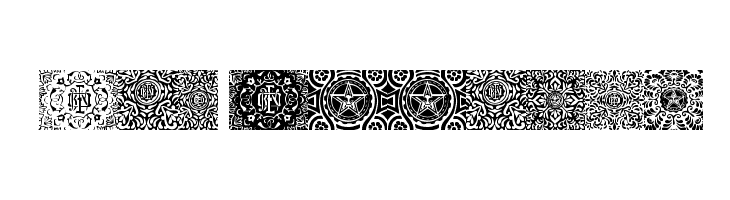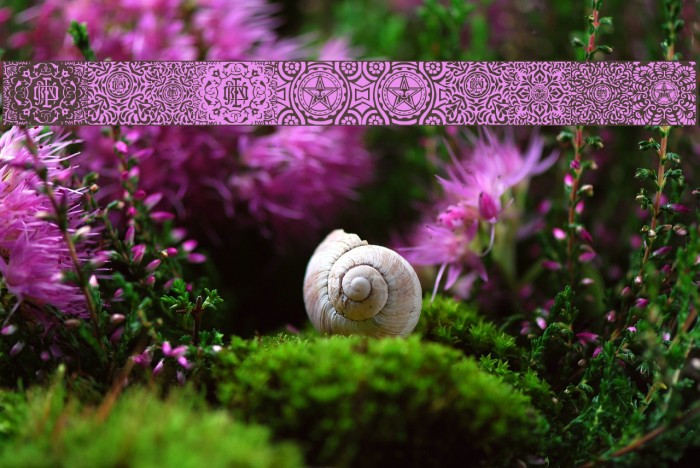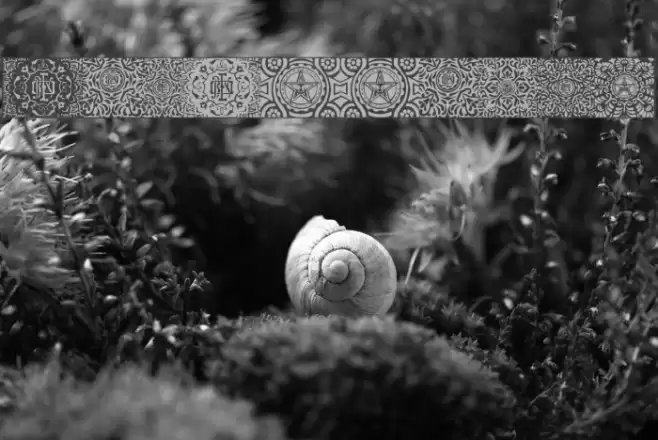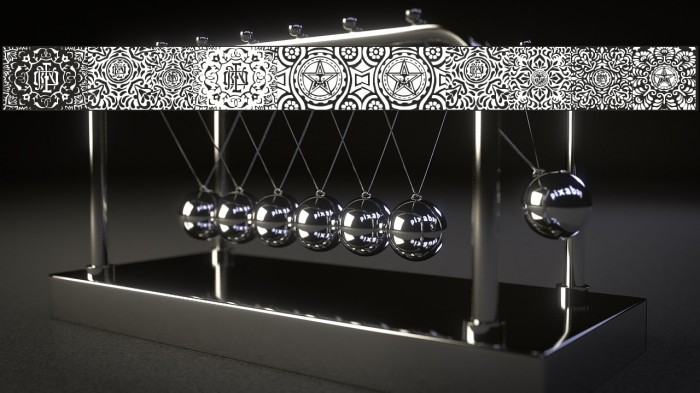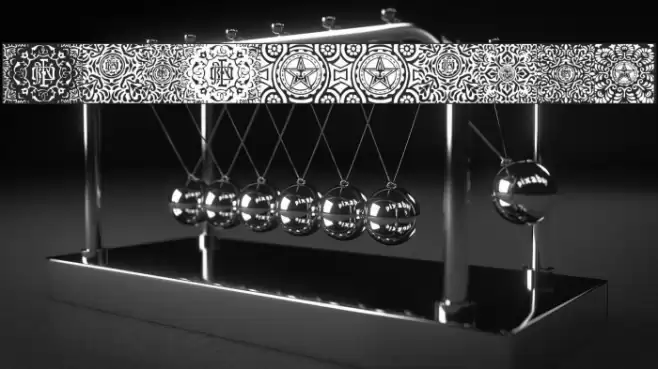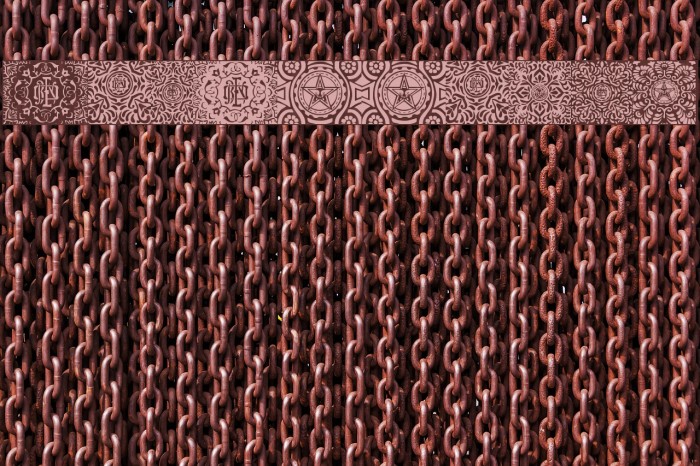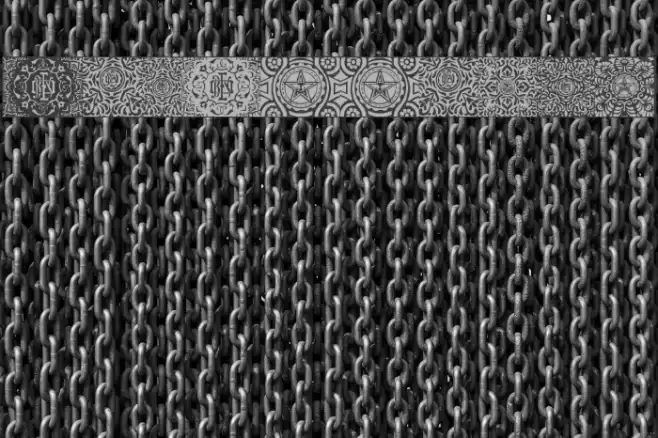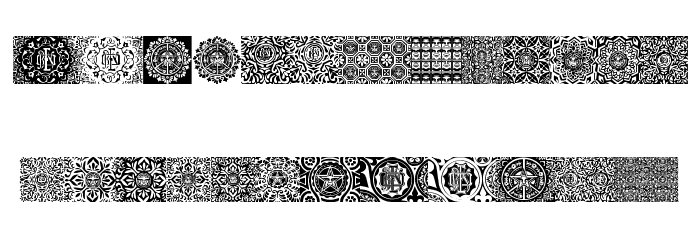
ObeyPatterns Font
ObeyPatterns Description
Highly decorative, ornamental font composed of intricate black-and-white patterns and motifs, with each character represented by a unique, detailed design rather than traditional letterforms.
| Overall Style | Decorative, Ornamental, Artistic |
| Use Case | Logos, Headlines, Posters, Artistic projects |
| Proposed Projects | Posters, album covers, branding for art or fashion, decorative headings, event invitations. |